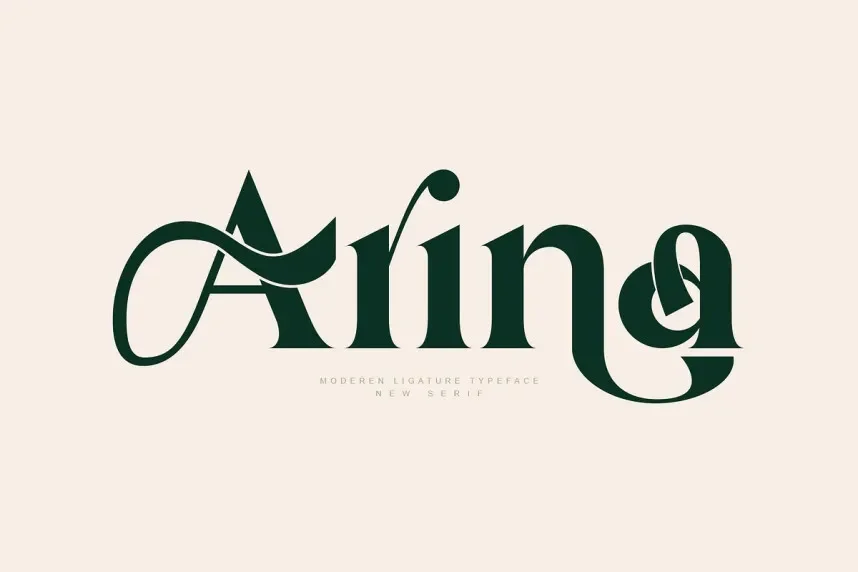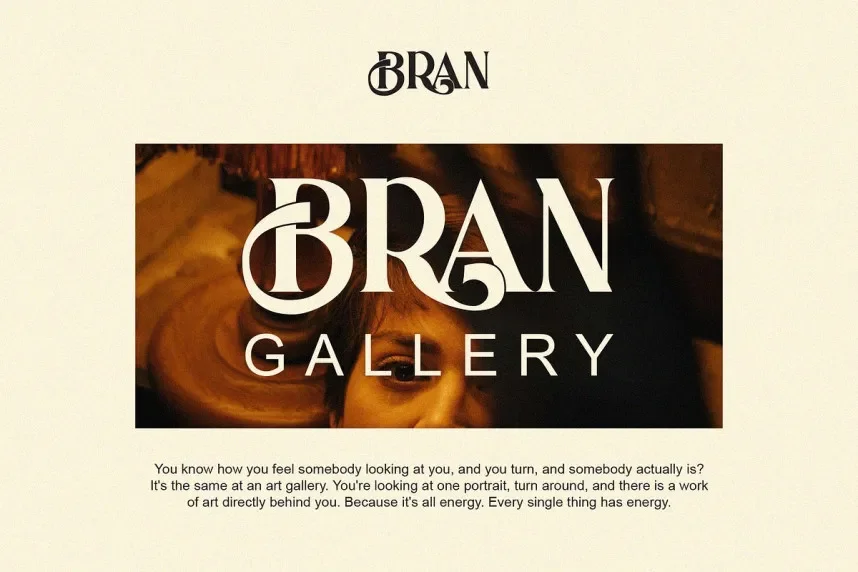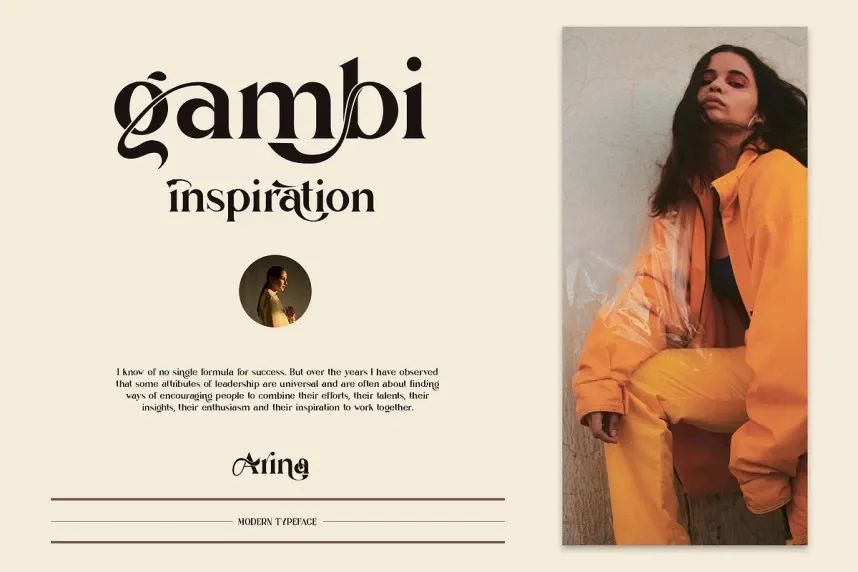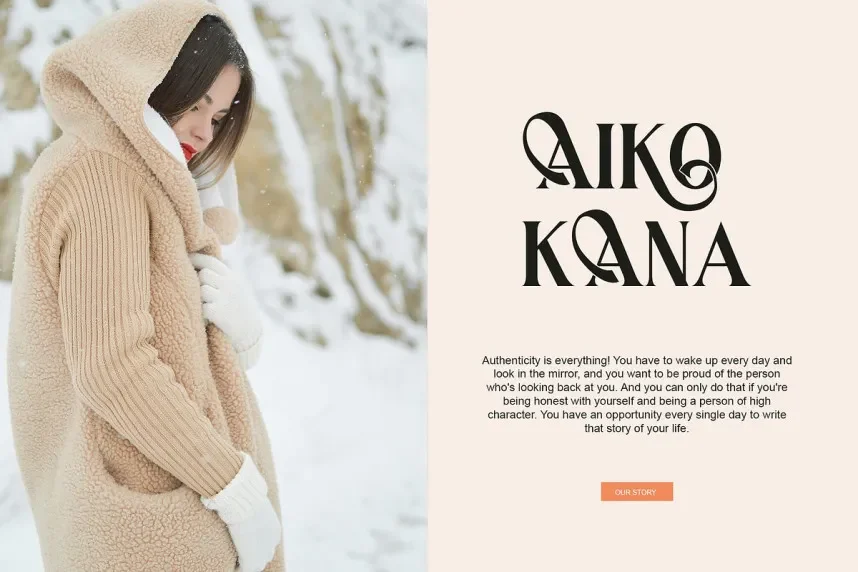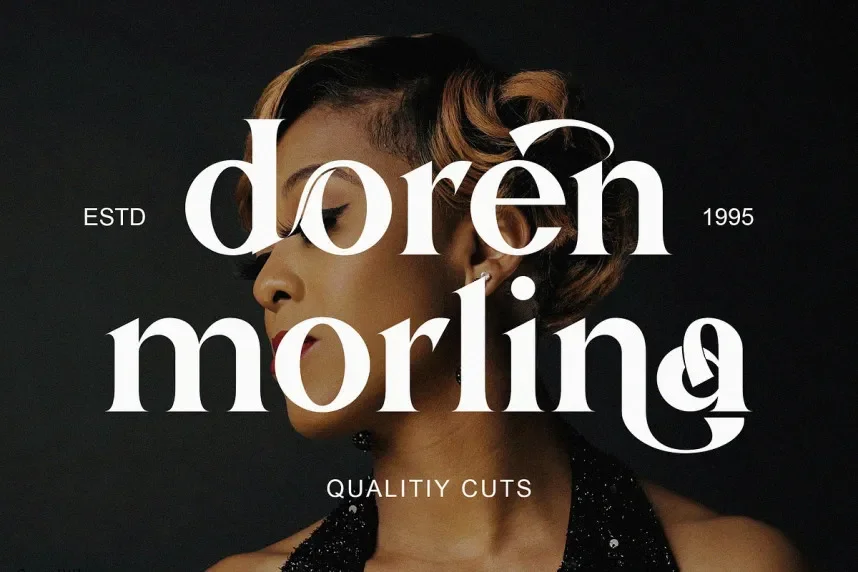
Arina Serif Font is a stylish, modern serif typeface with elegant curves and a sophisticated appearance. Its well-defined serifs and balanced letterforms make it ideal for luxury branding, high-end print design, and editorial content.